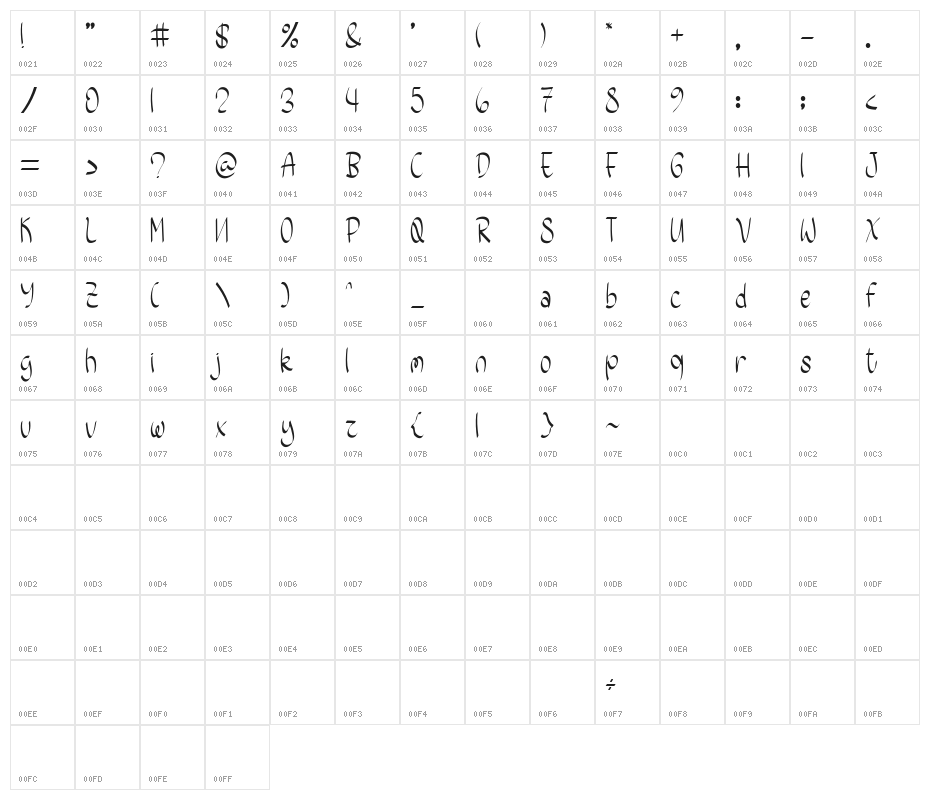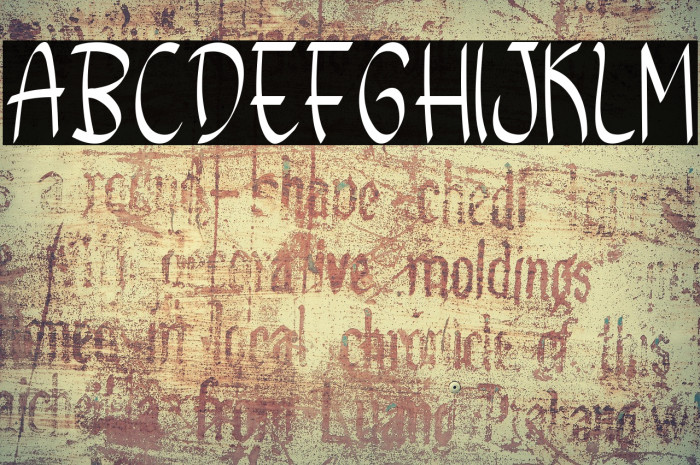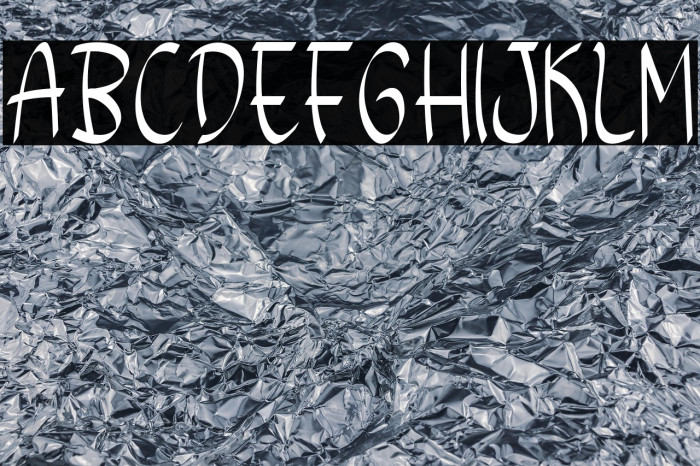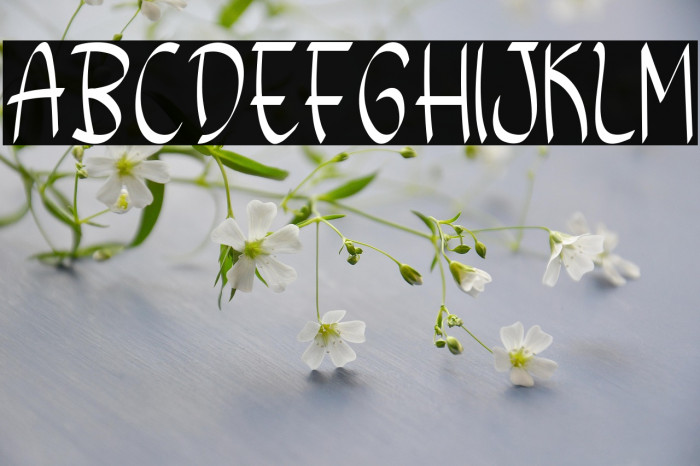
Sweet Juice Font
Sweet Juice Description
This font features a playful and dynamic style with a handwritten feel. The characters are slightly slanted, giving a sense of motion and energy. The strokes vary in thickness, adding a lively and informal touch. The uppercase letters are tall and narrow, while the lowercase letters maintain a consistent flow, enhancing readability. Numbers and special characters are designed to match the whimsical nature of the alphabet, making it suitable for creative and casual projects. The overall appearance is both modern and artistic, ideal for capturing attention and conveying a sense of fun.
| Proposed Projects | Ideal for greeting cards, children's books, playful branding, and creative social media graphics. |